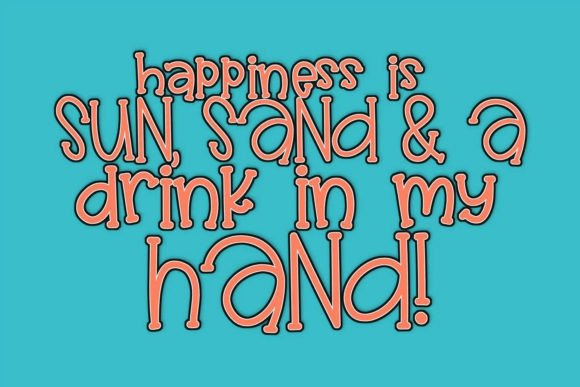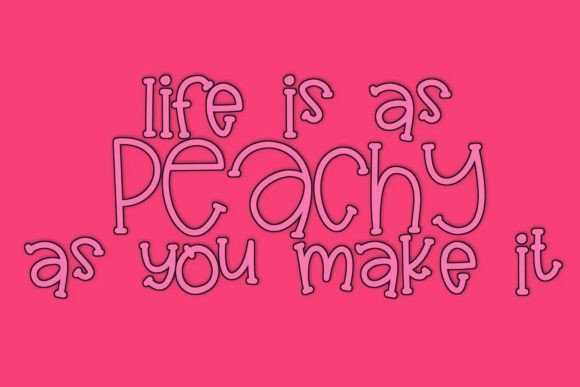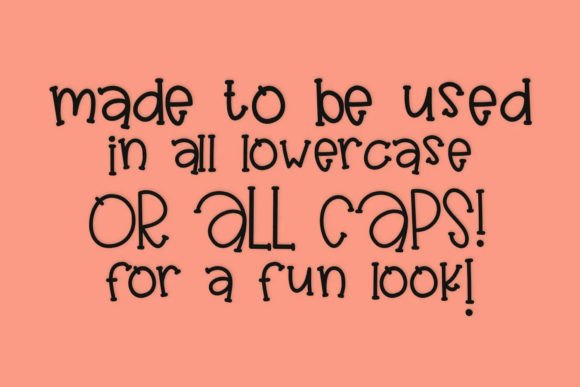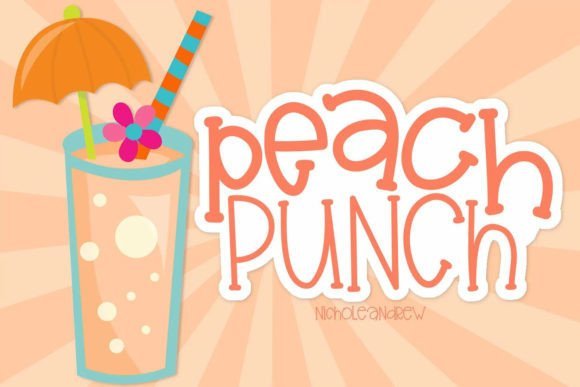
Introduction to Peach Punch Font
Introducing, Peach Punch a fun handwritten font.
Peach Punch is a quirky typeface, intended to be used in all caps or all lowercase for a fun look Try Peach Punch on a variety of projects including water bottles, t-shirts, notebooks, decals, and stickers.